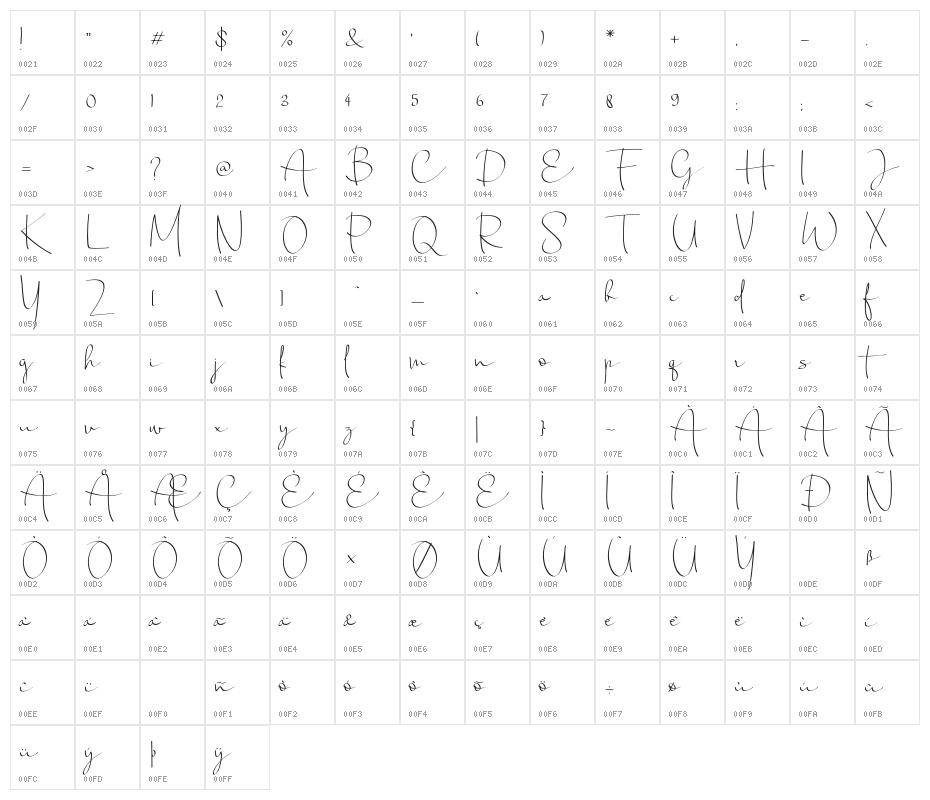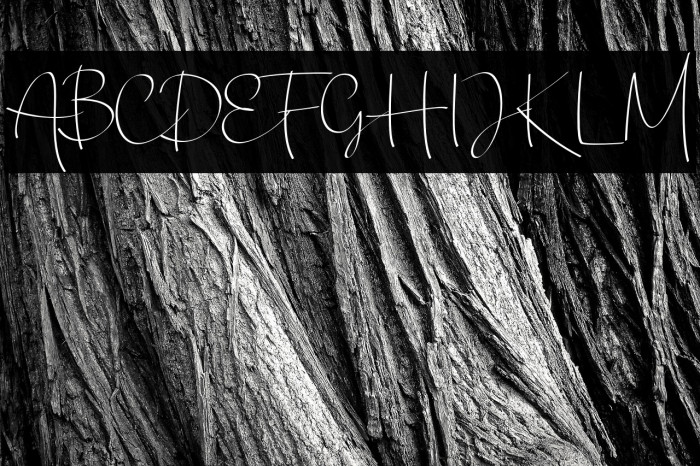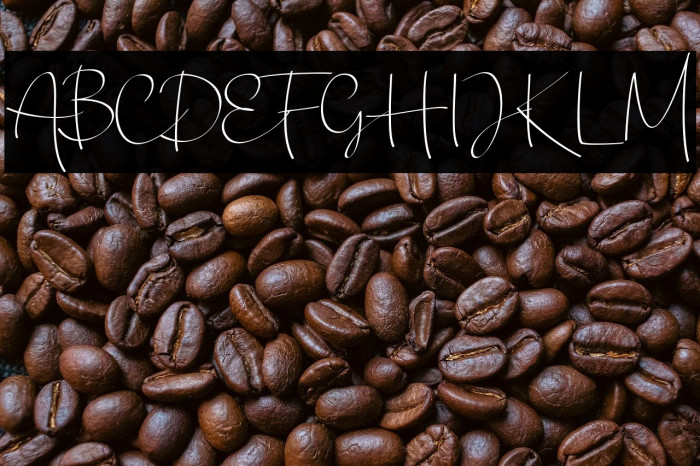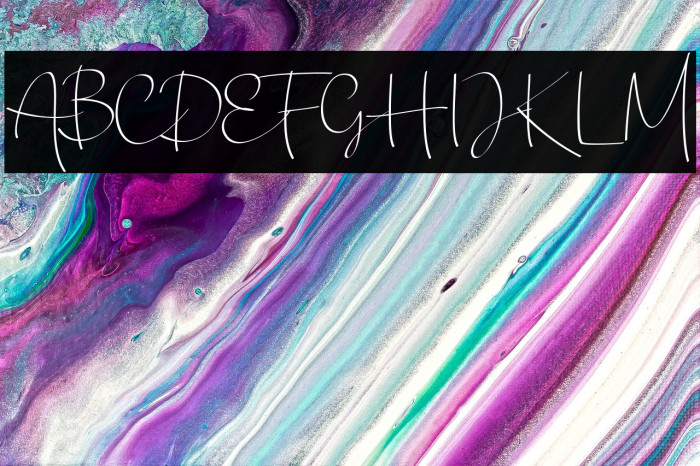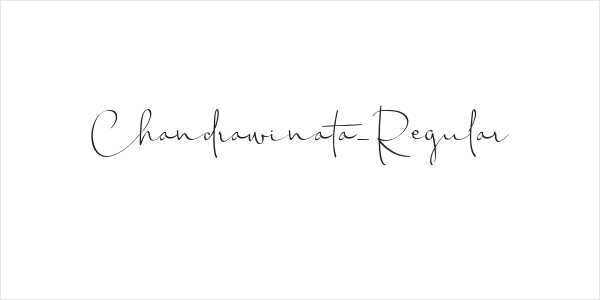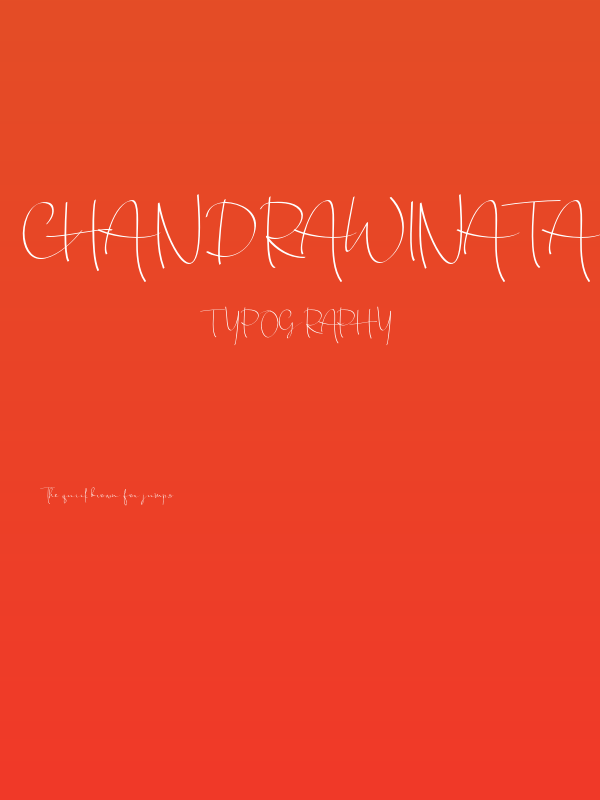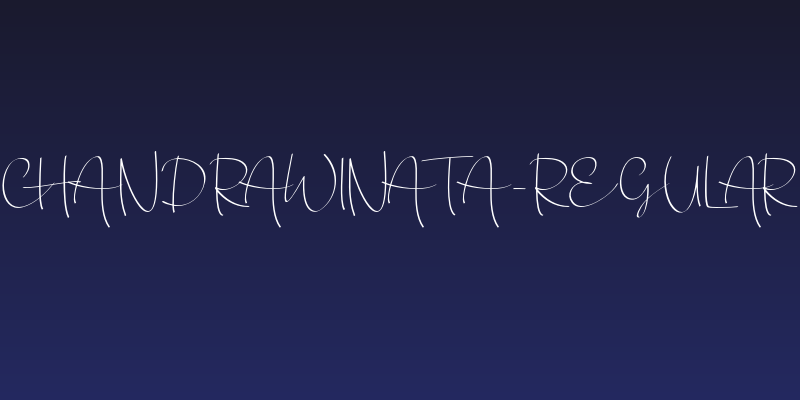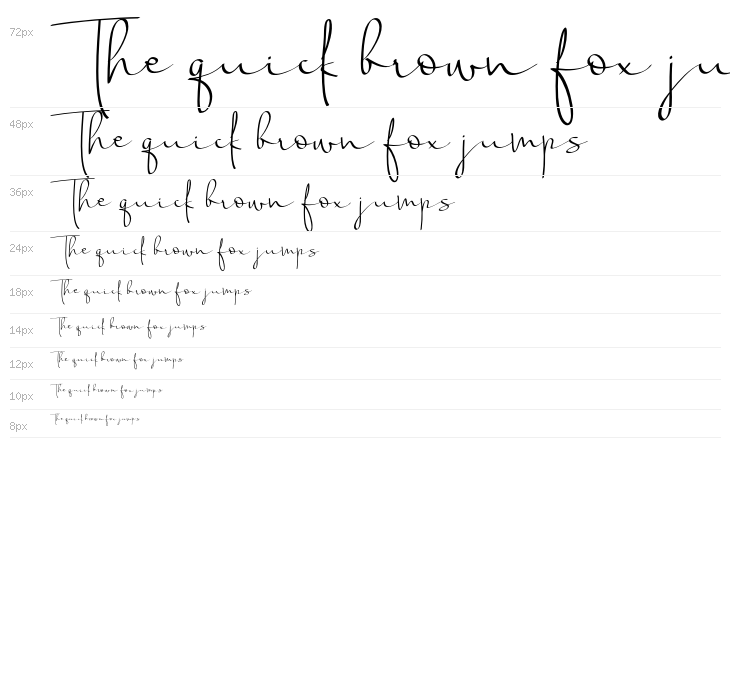
Chandrawinata-Regular Font
Chandrawinata-Regular Description
This font features a delicate and flowing script style, characterized by its elegant and fluid letterforms. The uppercase letters are tall and slender, with graceful curves and loops that give a sense of movement and sophistication. The lowercase letters maintain a consistent style, with elongated ascenders and descenders that add to the font's airy and whimsical appearance. The numerals are clear and legible, while the special characters blend seamlessly with the overall design. This font exudes a sense of elegance and charm, making it suitable for projects that require a touch of sophistication.